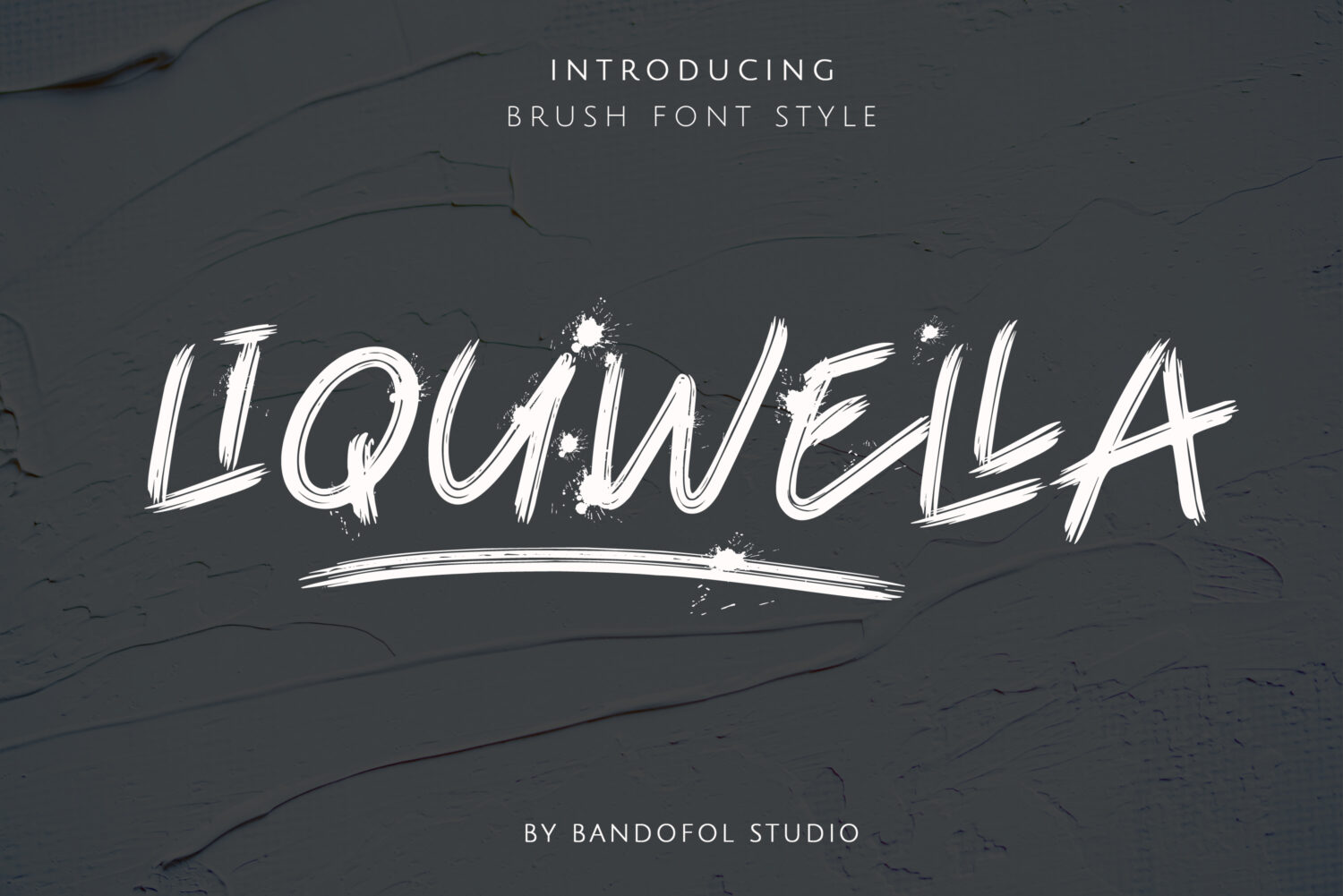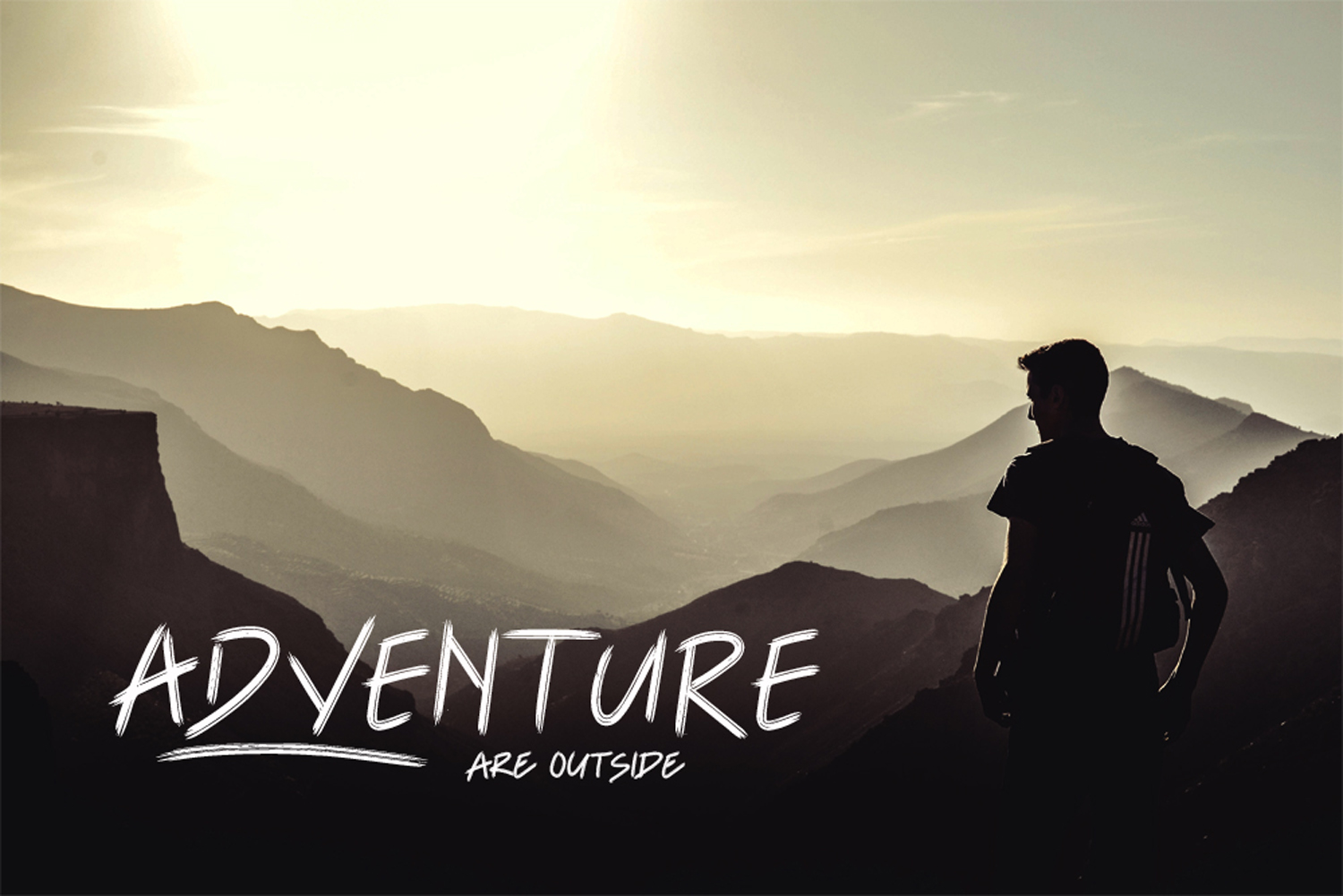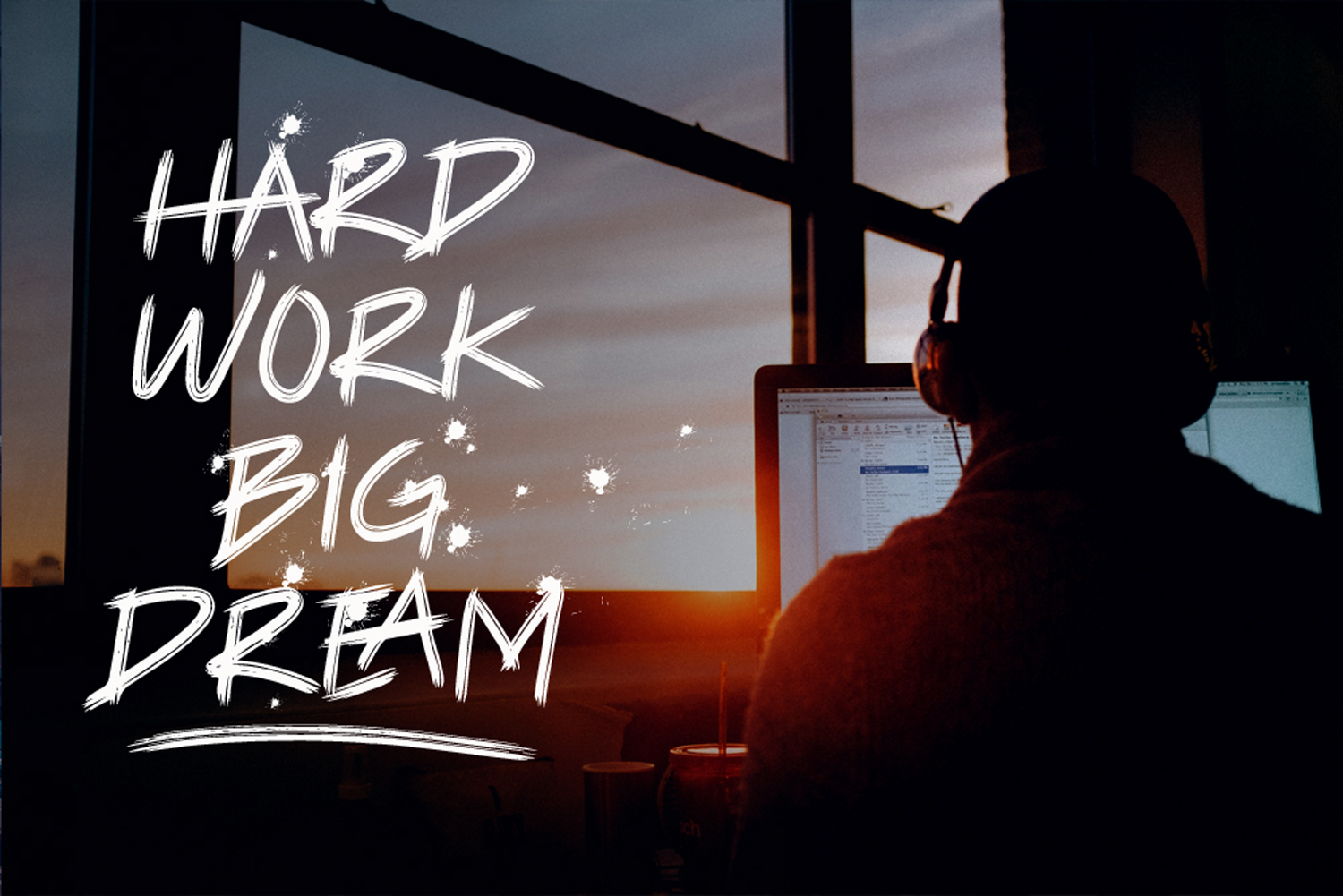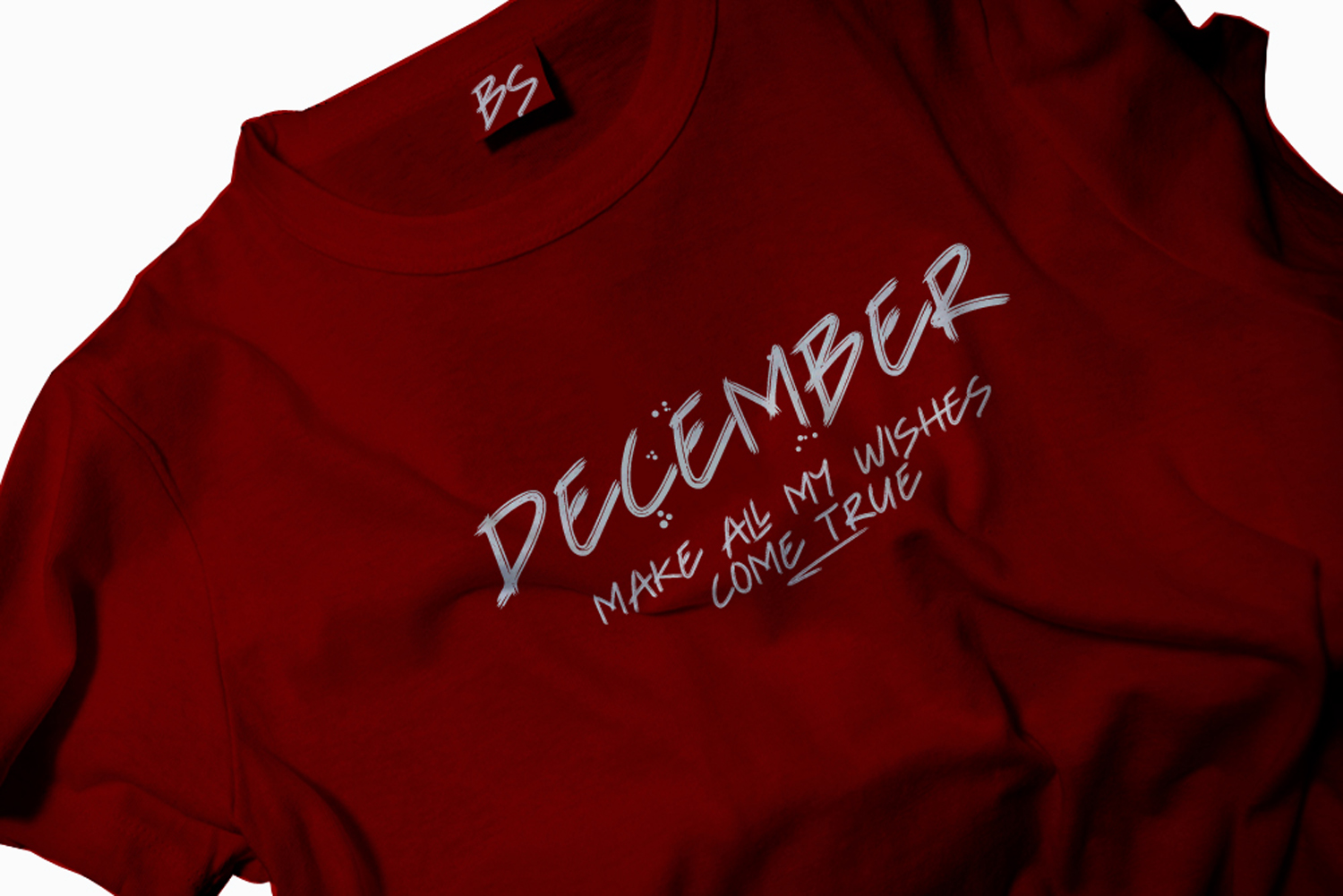
Liquwella Free Font
Liquwella Free Font is the newest modern brush typeface and it’s easy to make letters with just this font. Liquwella Font perfect for sports themes, ghosts, posters, designs for t-shirts, hats, jackets, or anything that makes a strong impression. Liquwella comes with a stylistic alternative, ligature, swash, and paint splash. To access paint swashes and splashes, you can easily type: Number + underline twice in the middle of a sentence. This free typeface was designed by talented Bandofol Studio. If you like it don’t forget to check out the full version.